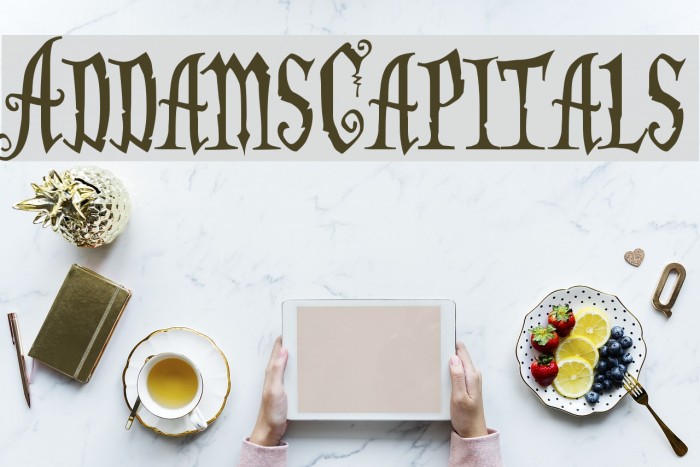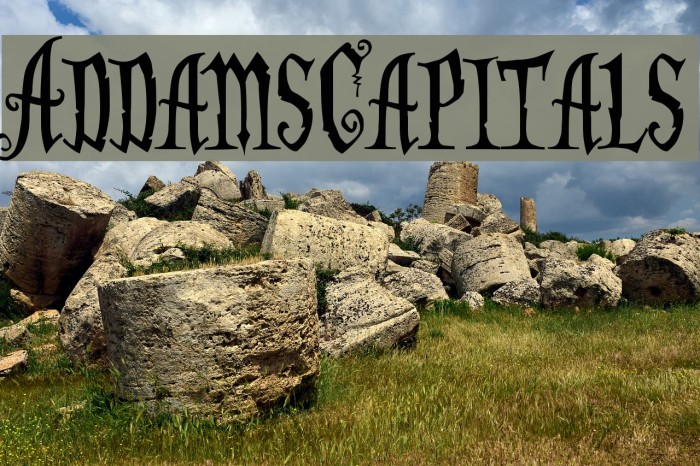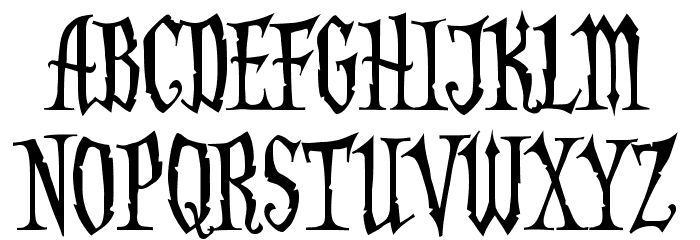
AddamsCapitals Font
AddamsCapitals Description
This font exudes a gothic and mysterious aura, characterized by its ornate and intricate letterforms. Each character is adorned with unique embellishments, such as curls and spikes, giving it a distinct, almost whimsical appearance. The uppercase letters are particularly elaborate, with exaggerated serifs and decorative elements that evoke a sense of drama and elegance. The lowercase letters maintain a consistent style, complementing the uppercase with their own flair. The numbers and special characters are equally stylized, ensuring a cohesive look across all glyphs. This font is perfect for projects that require a touch of the macabre or a vintage, gothic aesthetic.
A gothic, ornate font with intricate embellishments and dramatic serifs from Decorative fonts.
- Proposed Projects: Ideal for Halloween-themed designs, gothic invitations, vintage posters, and theatrical event branding.
- Overall Style: Gothic, Vintage, Decorative
- Use Case: Headlines, Posters, Logos